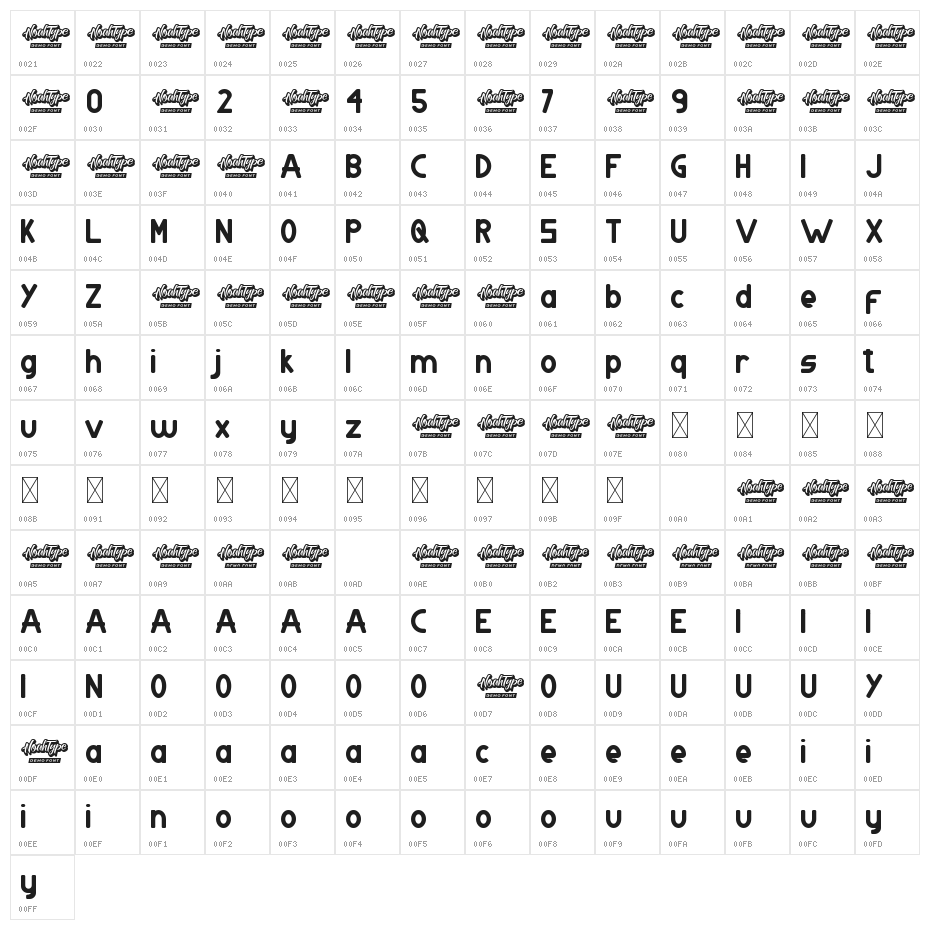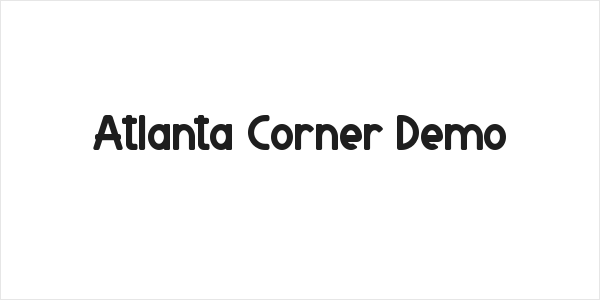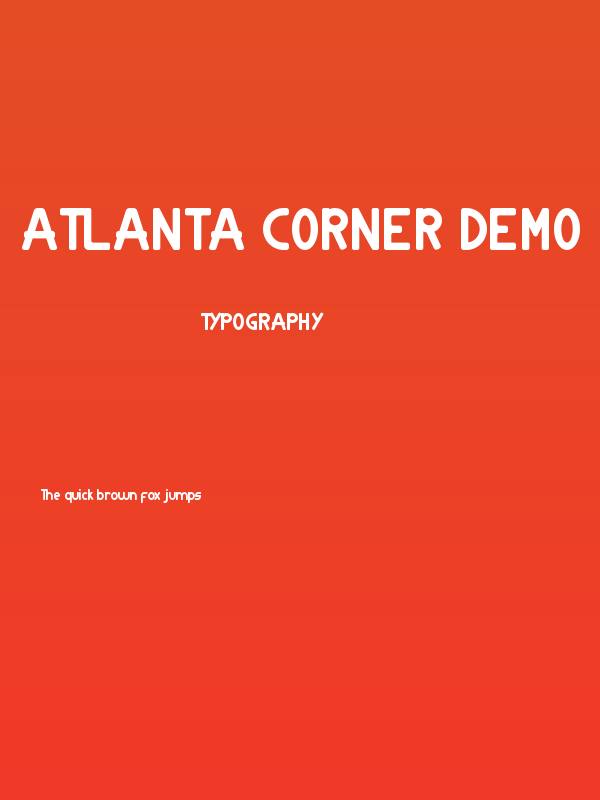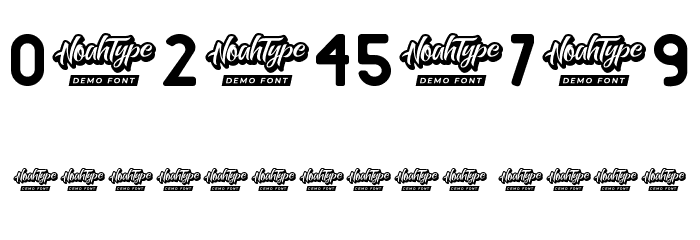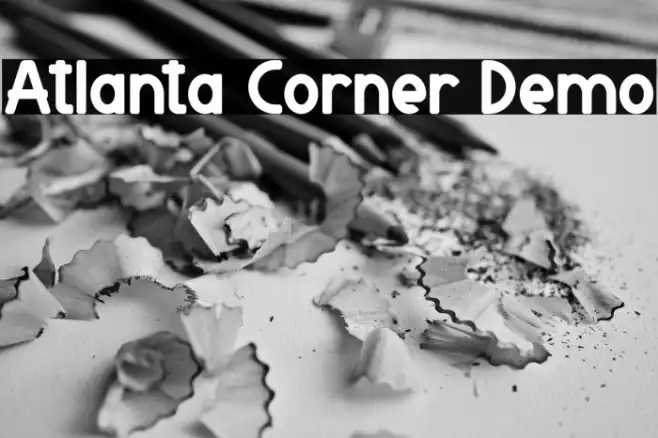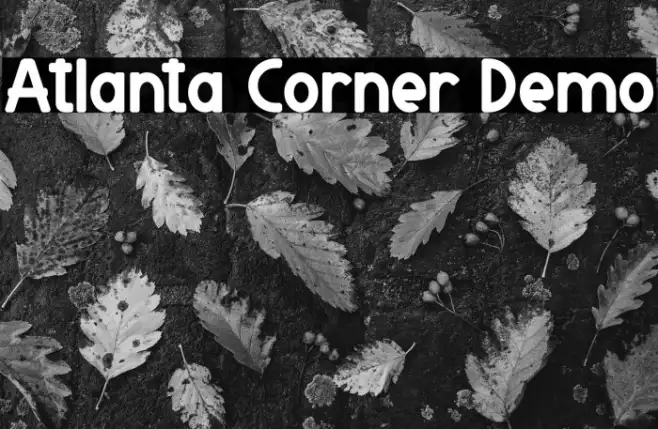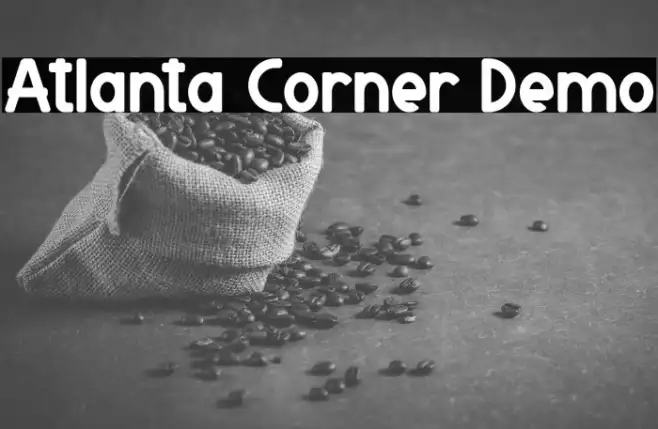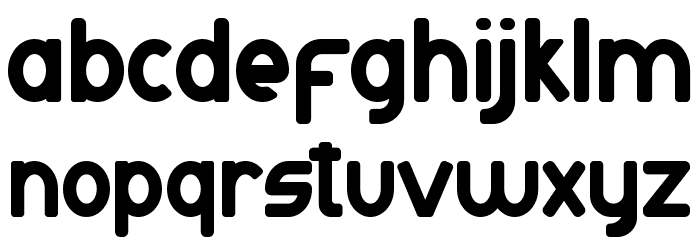
Atlanta Corner Demo Font
Atlanta Corner Demo Description
This font features a bold, rounded style with smooth curves and a modern aesthetic. The uppercase letters are uniform in height, while the lowercase letters maintain a consistent baseline, creating a harmonious look. The numbers are clear and legible, matching the overall style of the alphabet. The special characters are designed to blend seamlessly with the rest of the font, ensuring versatility in various applications. Its playful yet professional appearance makes it suitable for a wide range of design projects.
| Use Case | Logos, Headlines, Branding |
| Proposed Projects | Ideal for branding, advertising, packaging, and digital media projects where a modern and approachable feel is desired. |